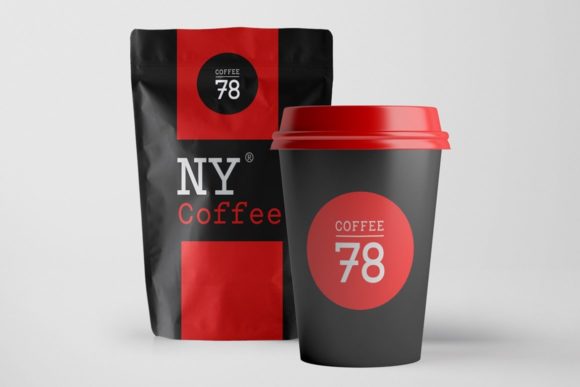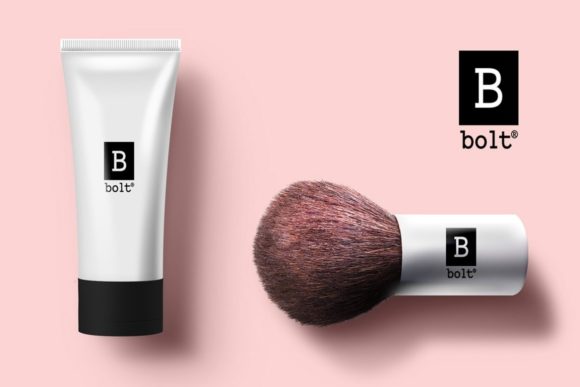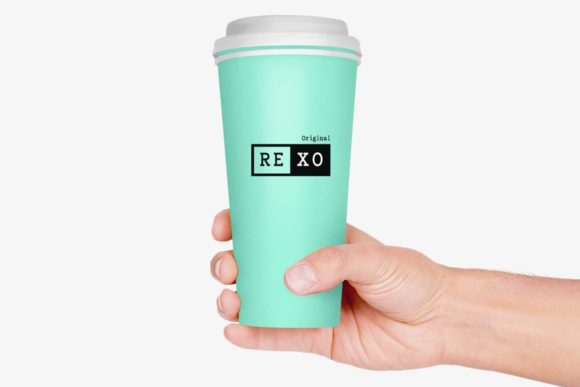
Falcon Font: Elevate Your Designs with a Minimal and Neat Display Font
Falcon is a stunning display font that has taken the design world by storm. With its minimal and neat aesthetic, it’s the perfect addition to any creative project. Whether you’re a designer, crafty DIY enthusiast, or simply someone who appreciates beautiful typography, Falcon Font is sure to impress.
The Versatility of Falcon Font
One of the standout features of Falcon Font is its incredible versatility. Its clean and simple design makes it an excellent choice for a wide range of projects, from modern logos and branding materials to eye-catching posters and social media graphics. Whether you’re working on a personal project or a client’s, Falcon Font is sure to make your designs stand out.
Key Features of Falcon Font
• Minimal and Neat Design: Falcon Font boasts a sleek and contemporary design that’s perfect for making a statement.
• Highly Versatile: From logos and branding to posters and social media graphics, Falcon Font can be used in a variety of creative projects.
• Easily Readable: Despite its minimalist design, Falcon Font is highly legible, making it perfect for use in both digital and print materials.
• Unique and Eye-Catching: With its distinctive style, Falcon Font is sure to add a touch of personality to your designs.
How to Use Falcon Font in Your Designs
Using Falcon Font in your designs is incredibly easy. Here are a few tips to get you started:
• Pair it with Bold Colors: Falcon Font looks stunning when paired with bold, bright colors. Try using it with a vibrant background or overlay to really make your text pop.
• Experiment with Textures: Add some texture to your designs by combining Falcon Font with different textures and patterns.
• Play with Size and Scale: Don’t be afraid to experiment with different font sizes and scales to create visual interest and hierarchy in your designs.
Who Can Benefit from Using Falcon Font?
Falcon Font is perfect for a wide range of designers and crafters, including:
• Graphic Designers: Falcon Font is a great addition to any graphic designer’s toolkit, perfect for creating stunning logos, branding materials, and marketing collateral.
• DIY Enthusiasts: Whether you’re creating handmade cards, gift tags, or other crafty projects, Falcon Font is a great choice for adding a touch of personality and style.
• Social Media Managers: Use Falcon Font to create eye-catching social media graphics that are sure to grab attention.
In conclusion, Falcon Font is a must-have for any designer or crafter looking to elevate their designs. With its minimal and neat aesthetic, versatility, and ease of use, it’s the perfect addition to any creative project. So why wait? Add Falcon Font to your toolkit today and watch your designs soar to new heights!